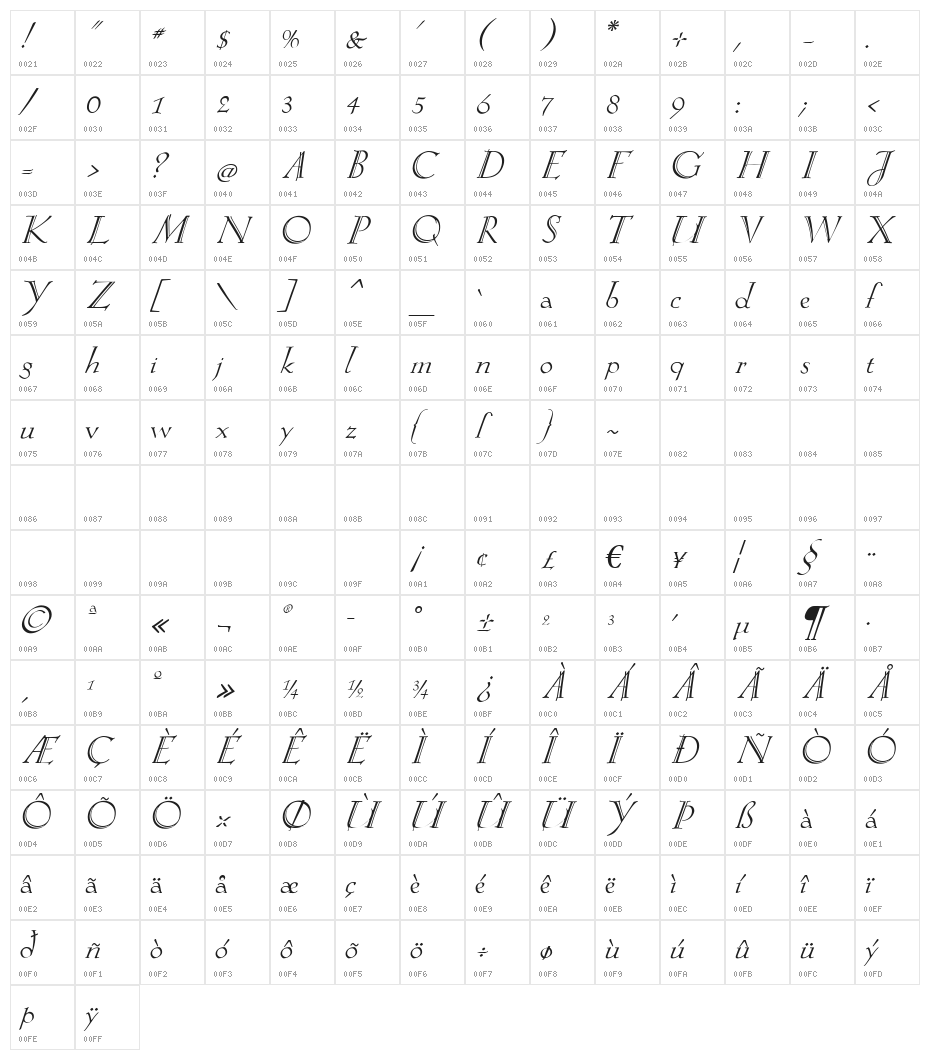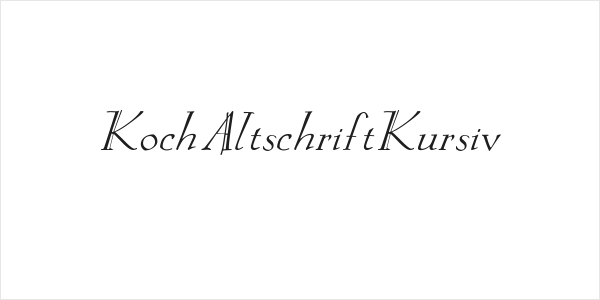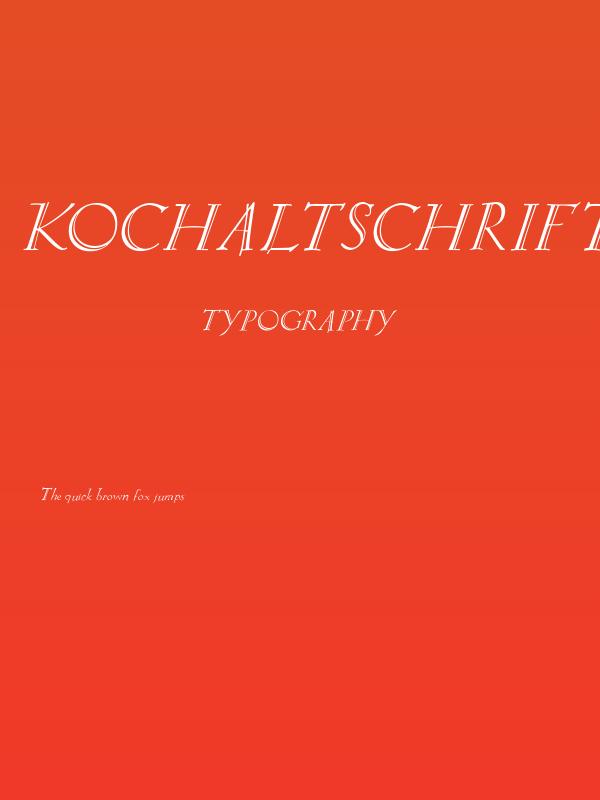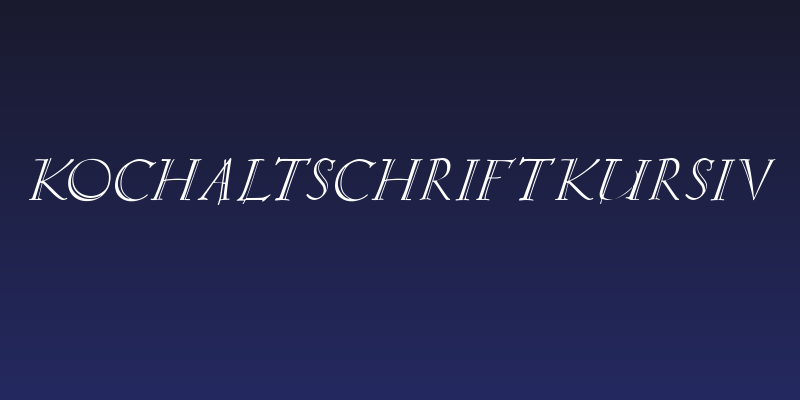
KochAltschriftKursiv Font
KochAltschriftKursiv Description
This font exhibits a classic and elegant style with a distinct italic slant, giving it a sophisticated and refined appearance. The characters are designed with a high contrast between thick and thin strokes, which adds to its graceful and flowing nature. The uppercase letters are tall and slightly narrow, while the lowercase letters maintain a consistent and harmonious flow. The numerals are proportionate and align well with the overall aesthetic. Special characters are thoughtfully crafted to complement the letterforms, enhancing the font's versatility. This typeface is ideal for projects that require a touch of elegance and tradition.
| Proposed Projects | Ideal for wedding invitations, formal event programs, luxury branding, and editorial design. |